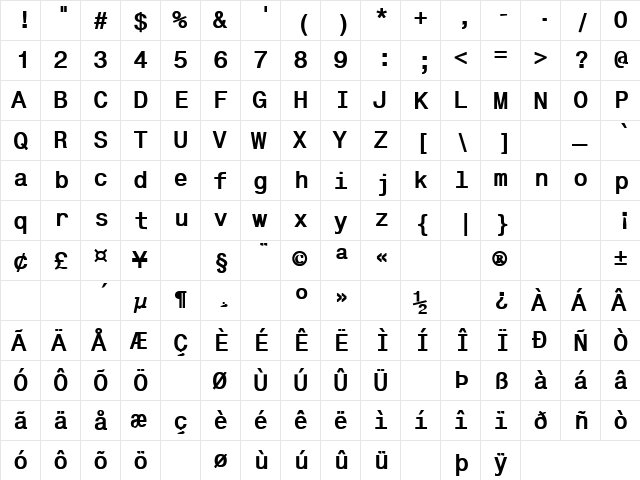
Gallows Pole 3 Bold Font Preview
Gallows Pole 3 Bold
Design Context for Gallows Pole 3 Typeface
Gallows Pole 3 is a composed and adaptable typeface that performs quietly and consistently across a wide range of design contexts. Its bold stroke weight gives it real presence on the page.